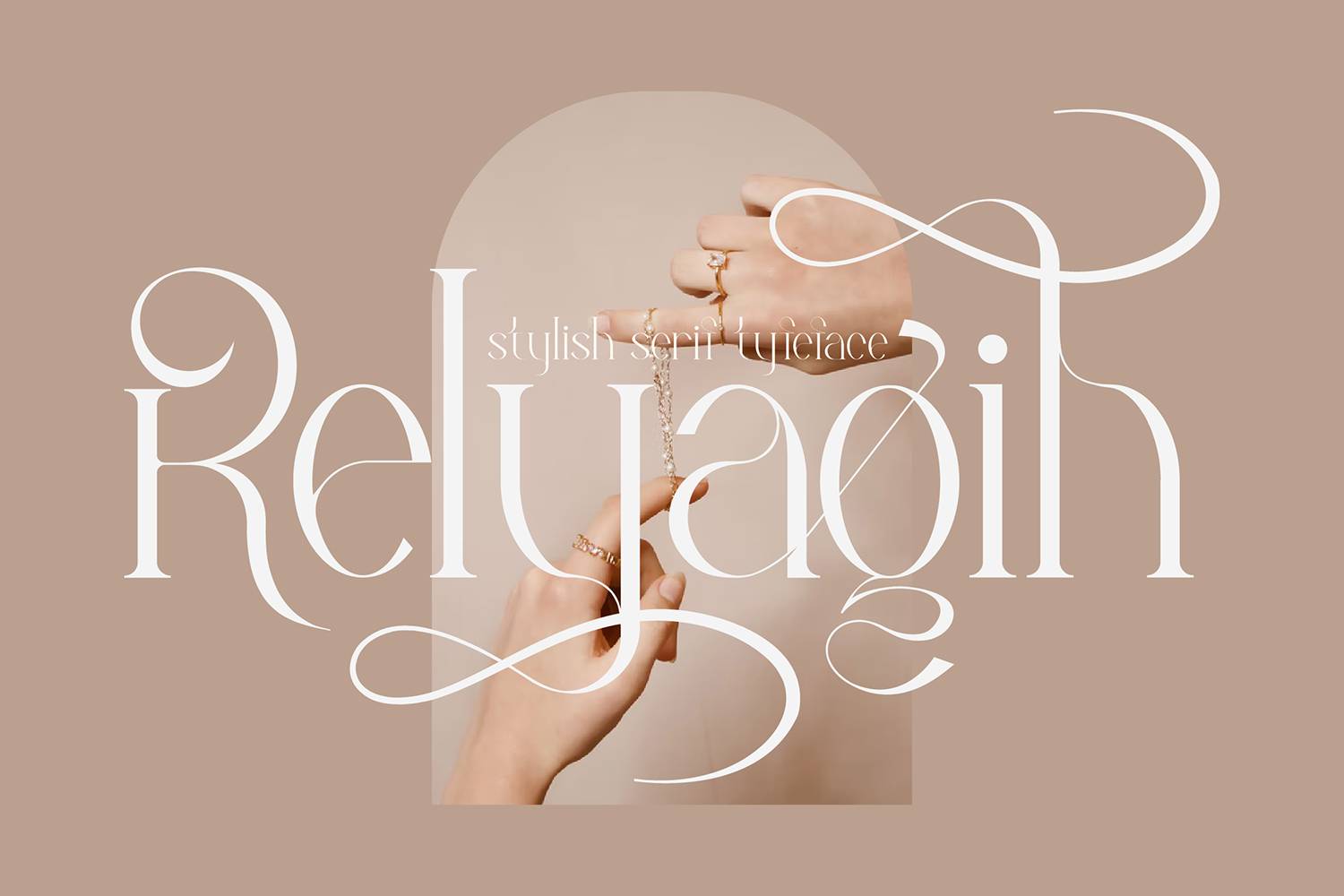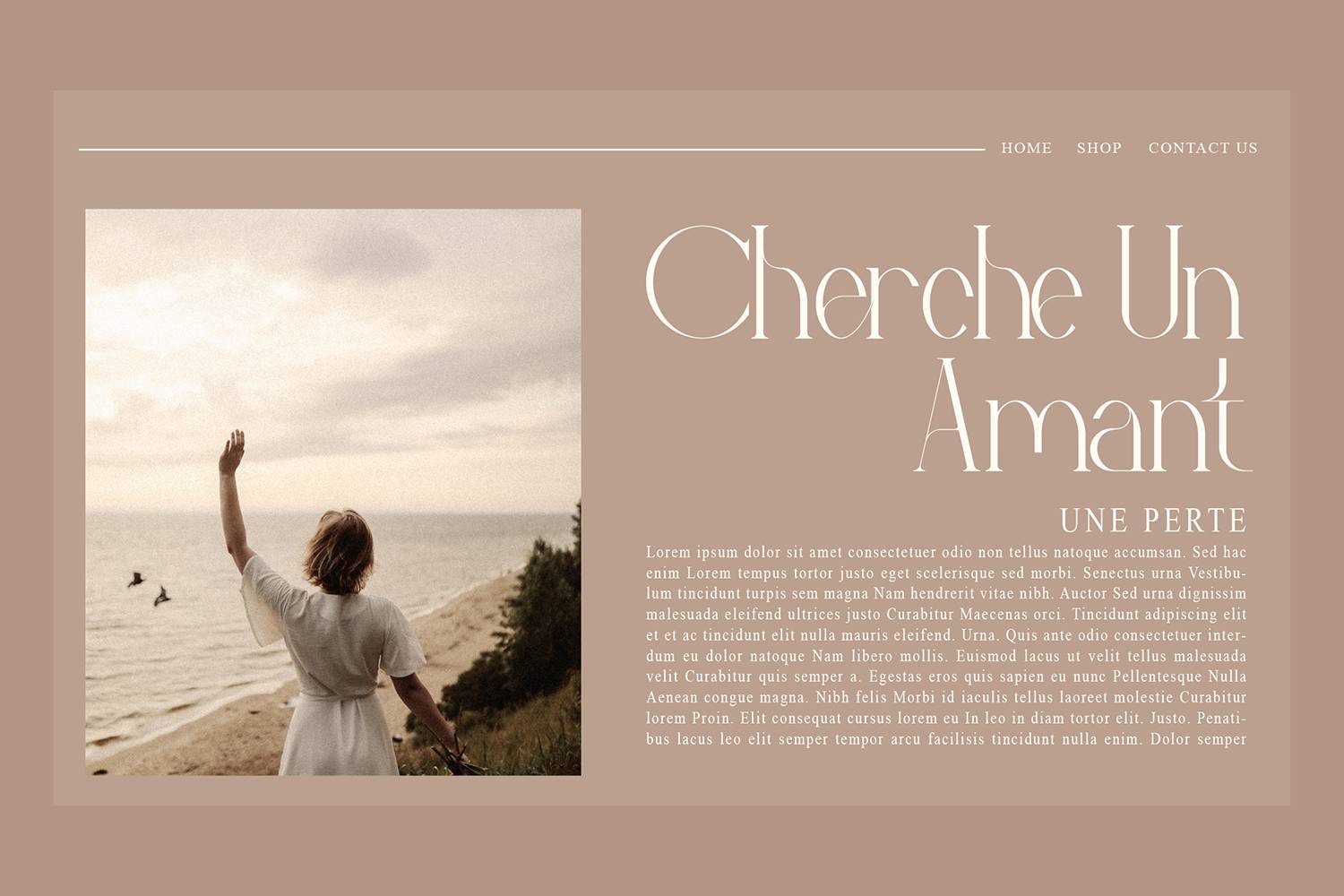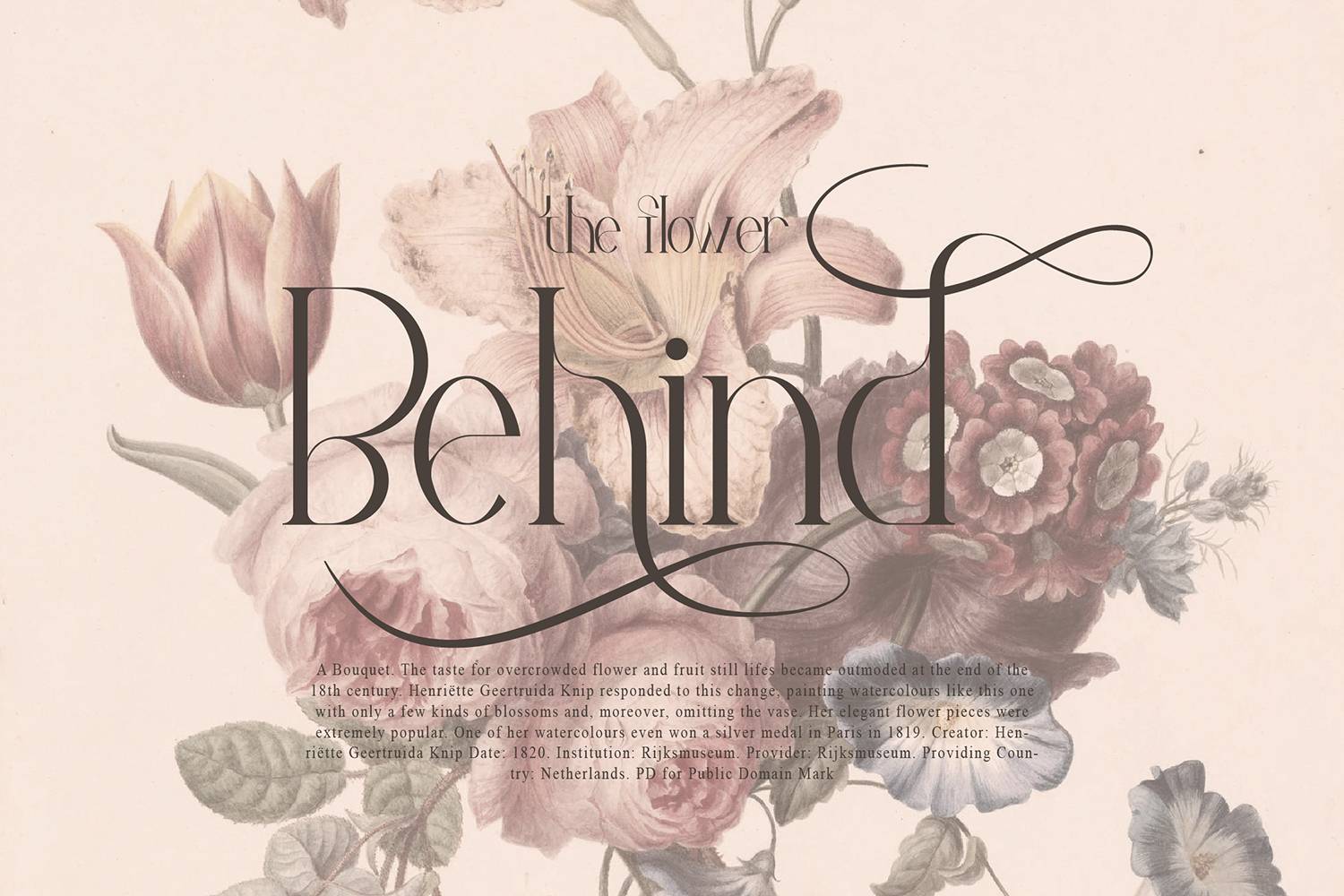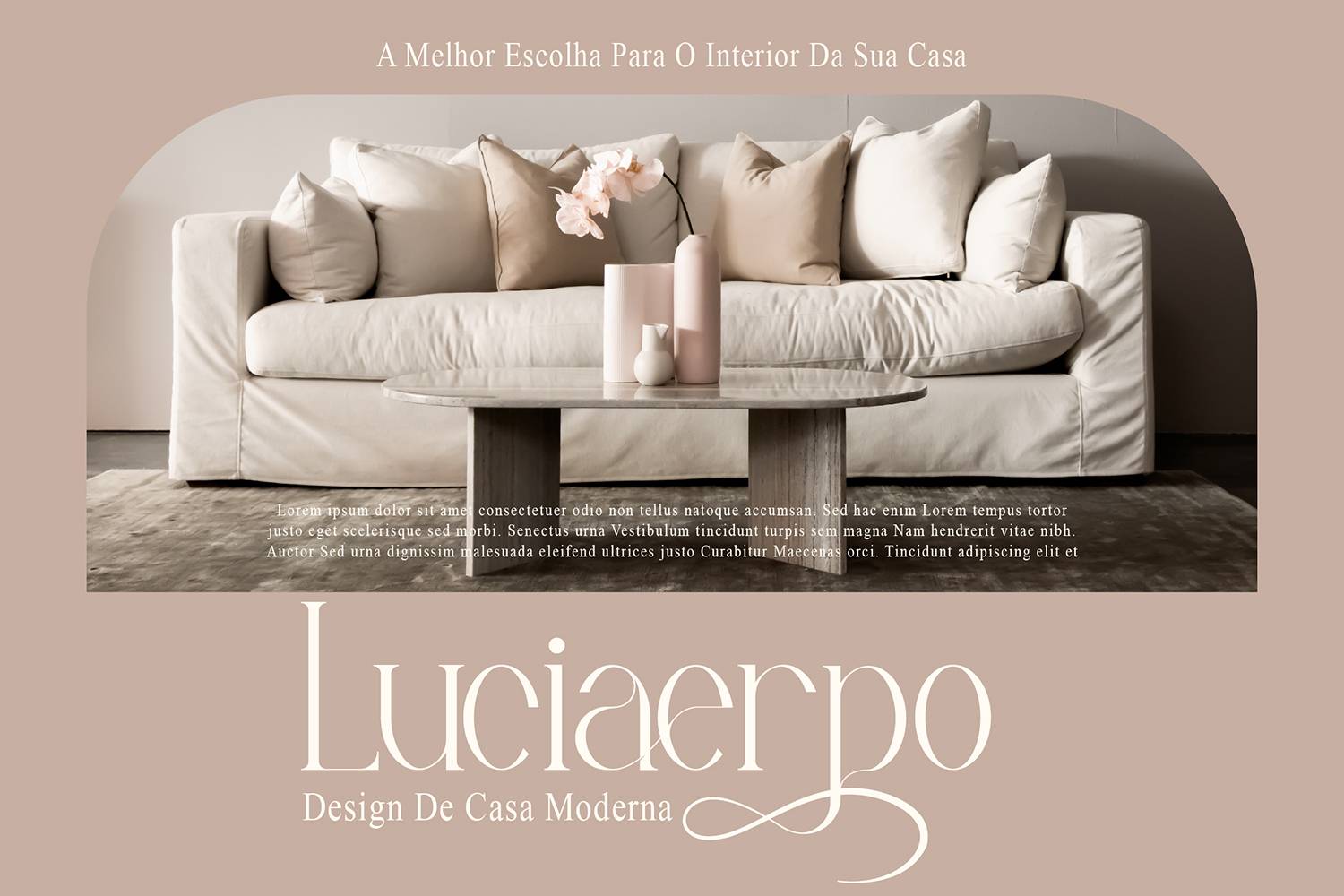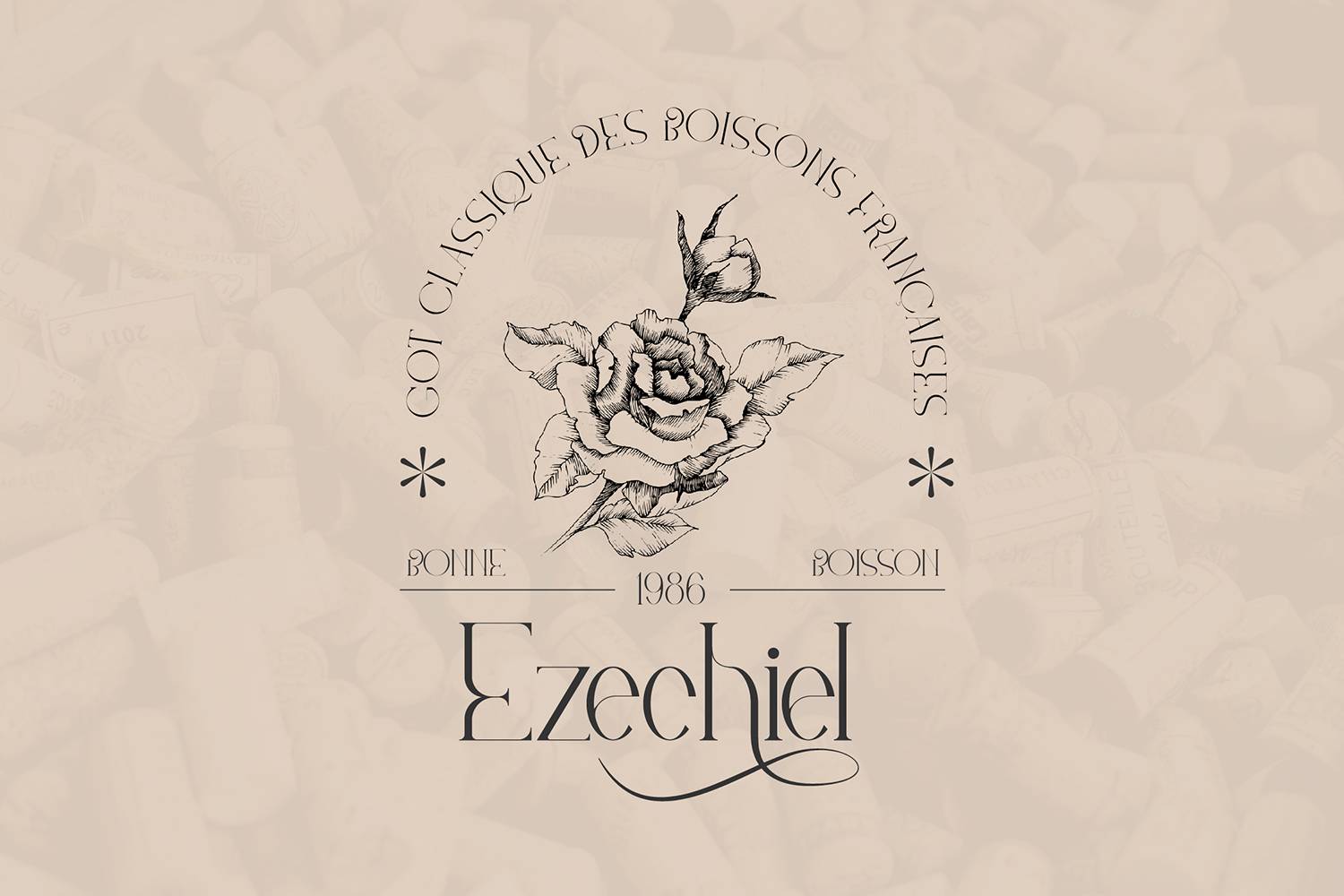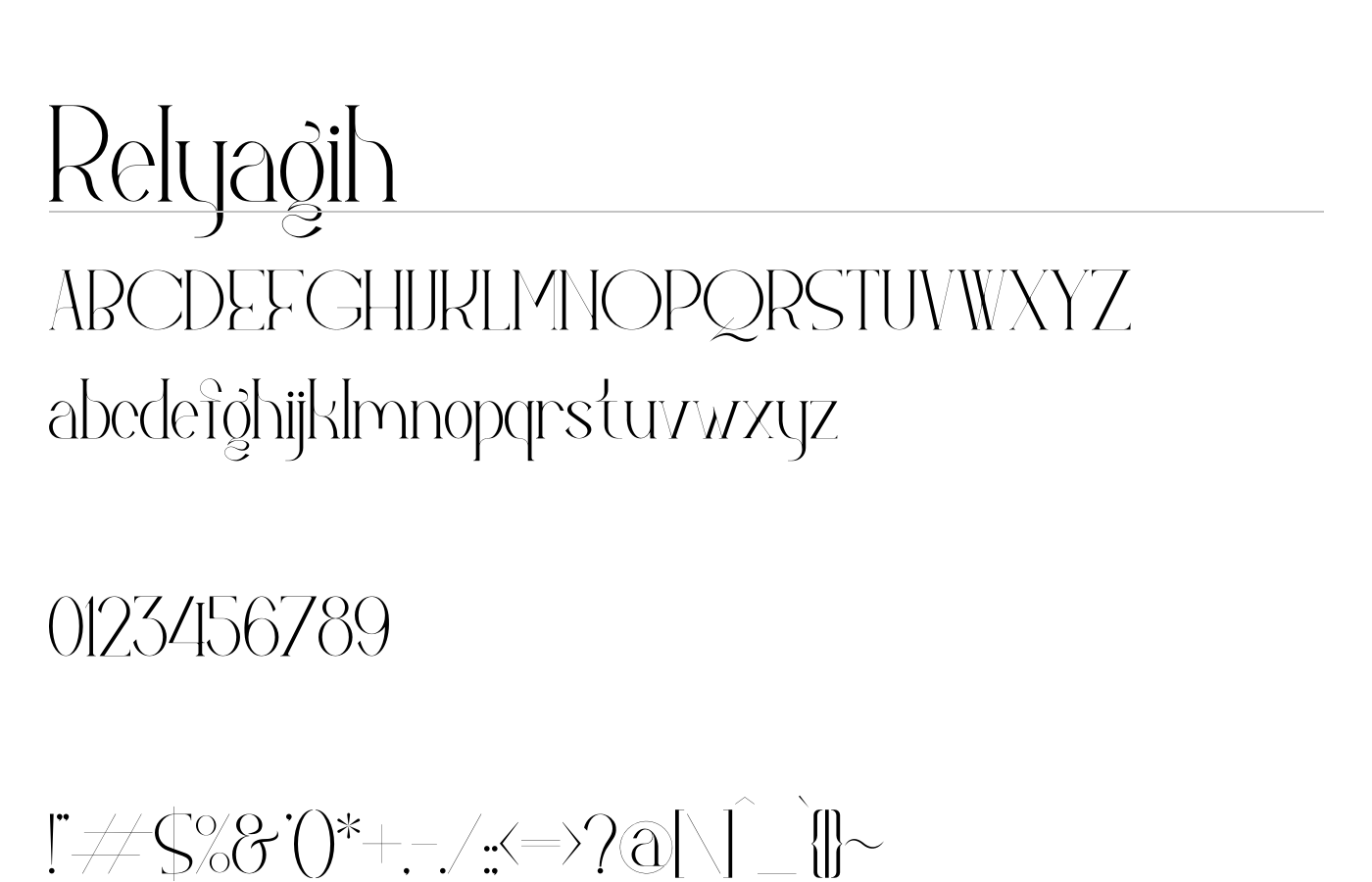
Relyagih is an elegant, modern serif font characterized by its extremely thin strokes and high contrast between thick and thin lines. With its tall, narrow letterforms and delicate, decorative details like unique tail swashes and subtle curls, it exudes a refined, artistic vibe perfect for luxury branding, fashion editorials, and sophisticated headlines. This font works best in large sizes where its intricate design can shine, adding a sense of stylish exclusivity to any project.
Relyagih Font
About Relyagih Font